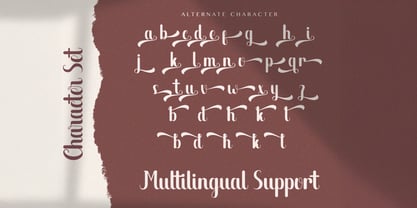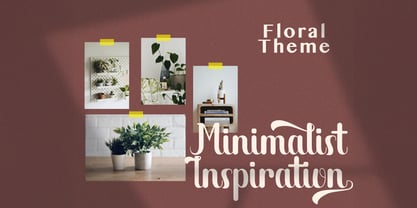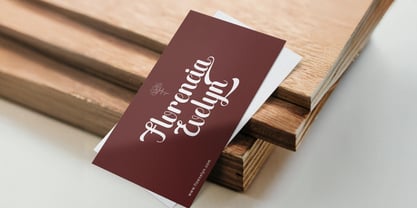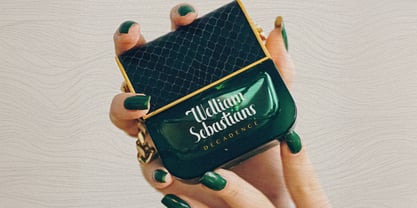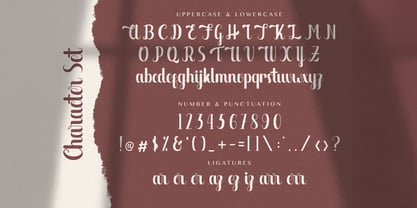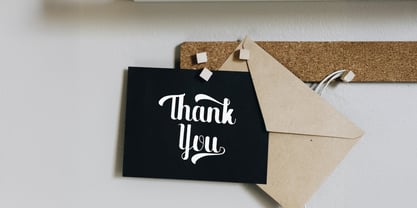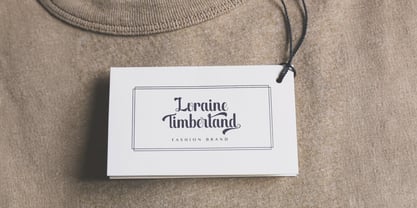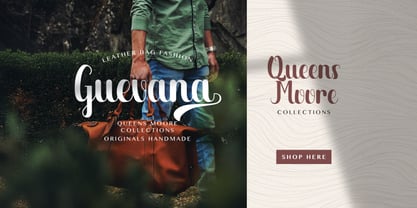
Die Schriftfamilie The Migare wurde von Virgiawan Listanto entworfen und von Stringlabs Creative Studio veröffentlicht. The Migare enthält 1 Stile.
The Migare is a stylish and modern handwritten font that brings a touch of elegance and personality to any design project. Whether you’re working on a creative project or looking to add a personal touch, The Migare adds a warm, handmade feel to your designs.
The Migare